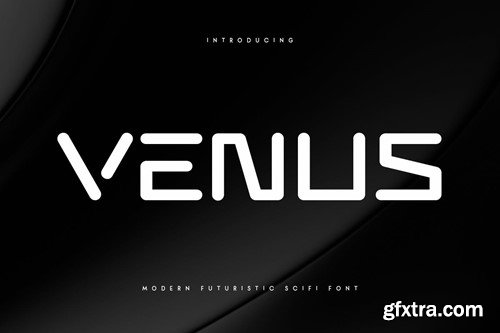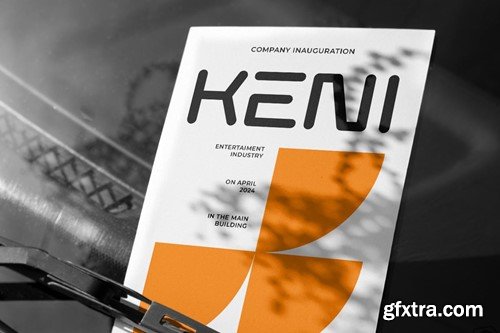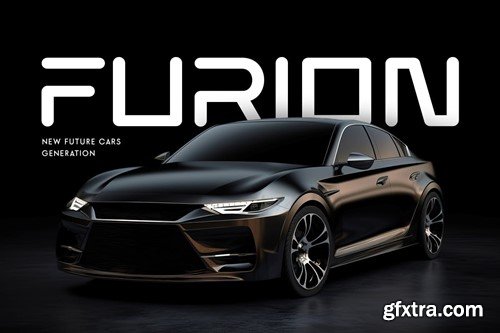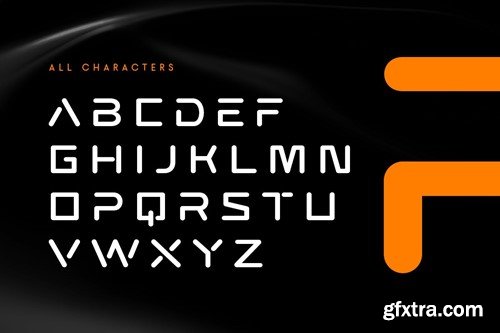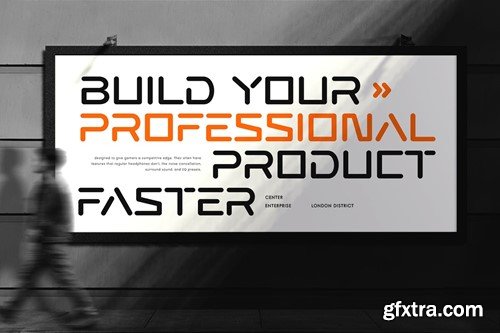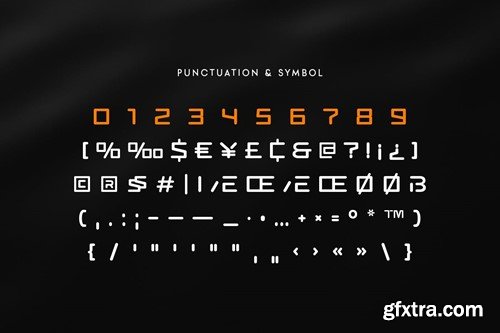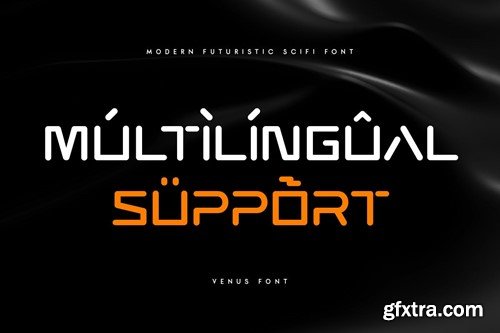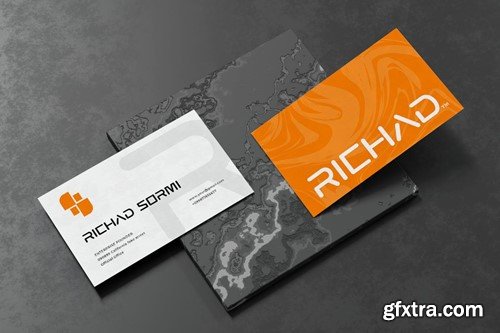
Introducing VENUS, the ultimate futuristic font designed for sci-fi and technology-themed projects. VENUS combines sleek lines and modern aesthetics to deliver a cutting-edge look that enhances any design. VENUS Font Features: Elevate your designs with VENUS, the font that embodies the essence of futuristic and technological innovation. Whether for branding, digital media, or creative projects, VENUS adds a sleek and sophisticated touch to your work. Embrace the future with VENUS and transform your designs today.